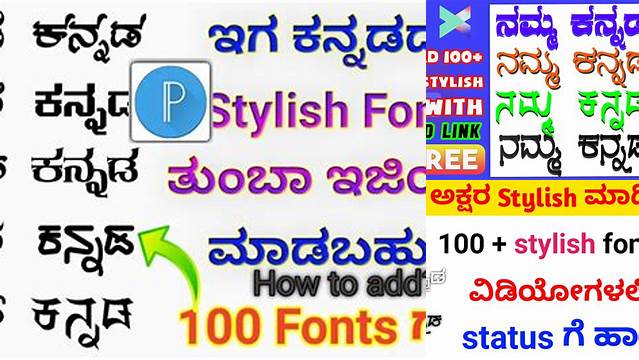
Kannada Stylish Fonts: Apps & How To Use Them
Hey guys! Are you looking to add some pizzazz to your Kannada text? Do you want to make your social media posts, invitations, or presentations stand out? Well, you've come to the right place! In this comprehensive guide, we'll dive deep into the world of Kannada stylish fonts apps, exploring everything you need to know to find the perfect font for your needs. We will guide you on what to consider when choosing an app, and highlight some of the top apps available in the market. By the end of this article, you'll be a pro at using Kannada stylish fonts and creating visually stunning text!
Why Use Kannada Stylish Fonts?
Kannada, a beautiful and ancient language spoken by millions, has a rich cultural heritage. Stylish fonts for Kannada are an excellent way to enhance the visual appeal of your content. Using stylish fonts can significantly improve the way your Kannada text looks, adding personality and flair to your writing. Think about it: a unique font can instantly grab attention, making your message more memorable and impactful. Whether you're creating a birthday invitation, designing a social media post, or working on a presentation, the right font can make all the difference. Imagine a beautifully designed banner with flowing, elegant Kannada script – it immediately conveys a sense of sophistication and culture. On the other hand, a playful, modern font might be perfect for a children's book or a casual greeting. This is why exploring the world of Kannada stylish fonts is essential for anyone looking to communicate effectively and aesthetically in the language. The visual aspect of your text is just as important as the words themselves. A well-chosen font not only enhances readability but also adds an emotional dimension to your message. For instance, a bold and strong font might be used to convey authority or confidence, while a delicate and flowing script can evoke feelings of elegance and grace. So, by choosing the right font, you're essentially adding another layer of meaning to your communication, making it more engaging and effective. Ultimately, the use of stylish fonts is about expressing yourself creatively and making your Kannada content stand out in a world filled with visual noise. It's about taking pride in your language and showcasing it in a way that is both beautiful and meaningful. So, let's dive in and discover the incredible range of Kannada stylish fonts that are available to you!
What to Look for in a Kannada Stylish Fonts App
Before we jump into the list of apps, let's talk about what makes a good Kannada stylish fonts app. Not all apps are created equal, and knowing what to look for will save you time and frustration. When you're on the hunt for the perfect Kannada fonts app, there are several key factors to keep in mind. The first thing you should consider is the variety of fonts available. A good app will offer a wide range of font styles, from traditional scripts to modern designs, ensuring that you can find the perfect match for your project. Look for apps that include different weights (bold, light, regular), styles (italic, cursive), and categories (serif, sans-serif) to give you the most flexibility. Beyond variety, the quality of the fonts is crucial. Are the fonts well-designed, legible, and aesthetically pleasing? A poorly designed font can make your text look unprofessional and difficult to read. Pay attention to details like kerning (the spacing between letters), glyph design, and overall visual appeal. A good app will feature fonts that have been carefully crafted by experienced designers. Another important factor is the app's user interface. Is it easy to navigate and use? Can you quickly find the fonts you need and preview them in your text? A clunky or confusing interface can make the process of choosing fonts frustrating and time-consuming. Look for apps with a clean, intuitive design that allows you to browse, preview, and select fonts with ease. Compatibility is also key. Will the fonts work with the applications you need them for? Some apps may only offer fonts that are compatible with specific software or platforms. Make sure the app you choose supports the file formats you need (e.g., TTF, OTF) and works with the programs you use for design, word processing, or social media. Finally, consider the app's features and functionality. Does it offer additional tools or options, such as the ability to customize font size, color, or spacing? Can you save your favorite fonts for easy access? Some apps even include features like text effects, background options, or image editing tools. These extra features can enhance your creative workflow and help you create truly unique designs. By considering these factors, you can narrow down your options and choose a Kannada stylish fonts app that meets your specific needs and preferences. Remember, the goal is to find an app that not only offers a great selection of fonts but also makes the process of using them enjoyable and efficient.
Top Kannada Stylish Fonts Apps
Alright, let's get to the good stuff! Here are some of the top Kannada stylish fonts apps available right now. We'll break down their features, pros, and cons to help you make the best choice. Choosing the right app for Kannada stylish fonts can feel overwhelming with so many options available. But don't worry, we've done the research for you! Here’s a rundown of some top contenders, each offering unique features to cater to different needs. First up is the Kannada Font Keyboard app. This one is a great all-rounder, particularly if you're looking for a keyboard integration. The standout feature is its seamless integration with your device's keyboard, allowing you to type in stylish Kannada fonts directly in any app – be it WhatsApp, Instagram, or your email client. This convenience is a major plus for users who frequently communicate in Kannada across various platforms. The app boasts a decent selection of fonts, covering both traditional and modern styles, ensuring there's something for everyone. The interface is user-friendly, making it easy to switch between fonts on the go. However, some users might find the font selection a tad limited compared to dedicated font editors. Next, let's talk about Font Rush. If you're after a vast library of fonts and extensive customization options, Font Rush might be your go-to app. Font Rush shines with its extensive collection of Kannada fonts, making it a treasure trove for designers and creatives. The app allows for deep customization, including font size, color, spacing, and even adding shadows and textures. This level of control is perfect for crafting eye-catching graphics and social media posts. While the app is feature-rich, the interface can feel a bit overwhelming at first. But once you get the hang of it, you'll appreciate the power it puts at your fingertips. Moving on, we have Stylish Text. Stylish Text isn't just for Kannada; it's a versatile app that offers a wide range of stylish fonts for various languages. It excels in quick and easy text styling, allowing you to generate fancy text snippets that can be copied and pasted into any application. This makes it ideal for adding flair to your social media bios, captions, and messages. The app also includes a floating toolbar for quick access to font styles, which is a handy feature. However, if you're looking for in-depth font customization, Stylish Text might fall a bit short compared to apps like Font Rush. Then there's Fonts Art. Fonts Art is known for its visually appealing interface and user-friendly design. It offers a curated selection of stylish Kannada fonts, focusing on quality over quantity. The app's clean layout makes it easy to browse and preview fonts, and it integrates well with popular social media platforms. Fonts Art is a great choice for users who want a hassle-free experience and aesthetically pleasing fonts. However, if you need a massive font library or advanced customization options, you might want to explore other alternatives. Lastly, we have the Kannada Font Editor. This app is more than just a font selector; it's a comprehensive tool for creating and editing Kannada fonts. If you're a serious typographer or designer, this app offers the control and flexibility you need. The Kannada Font Editor allows you to modify existing fonts or even create your own from scratch. This level of customization is unparalleled, but it does come with a steeper learning curve. The app is best suited for users with some knowledge of typography and font design. Each of these apps brings something unique to the table, so the best choice for you will depend on your specific needs and preferences. Whether you're looking for keyboard integration, a vast font library, easy text styling, a user-friendly interface, or advanced font editing capabilities, there's a Kannada stylish fonts app out there that's perfect for you. So, take some time to explore these options and find the one that sparks your creativity!
How to Use a Kannada Stylish Fonts App
Okay, you've downloaded an app – now what? Don't worry, using a Kannada stylish fonts app is usually pretty straightforward. Let's walk through the general steps. So you've got your Kannada fonts app all set up, but now you might be wondering,